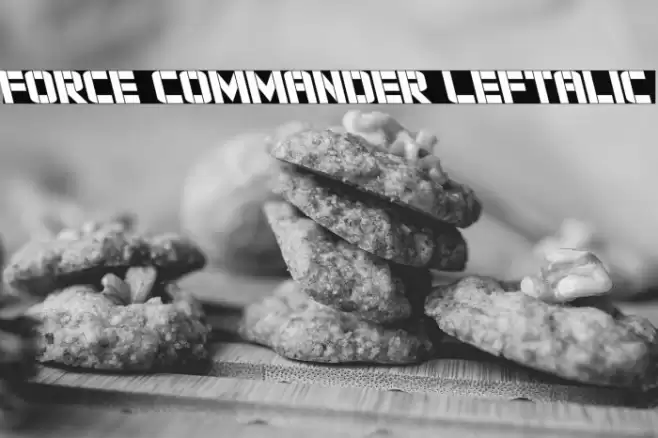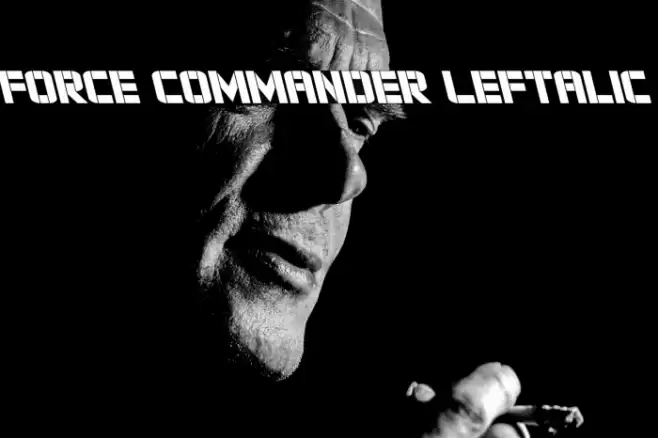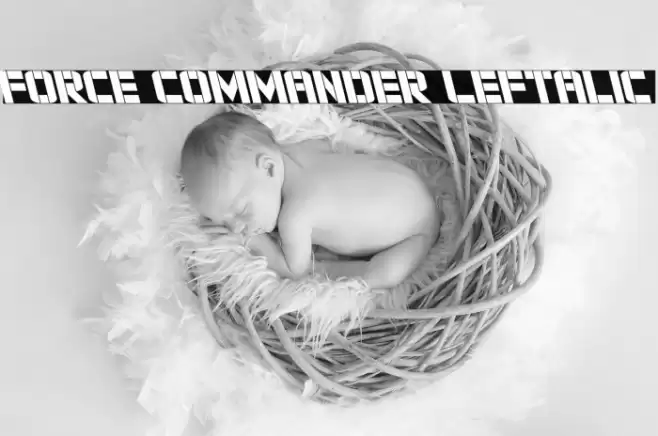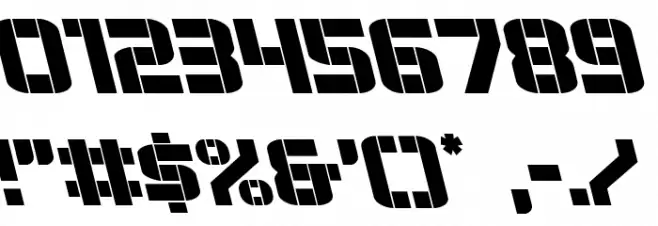
Force Commander Leftalic Font
Force Commander Leftalic Description
This font features a bold, geometric design with a distinct stencil-like appearance. The characters are constructed with thick, angular strokes that create a strong visual impact. The design incorporates sharp edges and a consistent slant, giving it a dynamic and futuristic feel. The uppercase and lowercase letters maintain a uniform style, while the numbers and special characters complement the overall aesthetic. The font's unique structure makes it suitable for attention-grabbing headlines and modern design projects.
A bold, geometric stencil font with a dynamic, futuristic style from Uncategorized fonts.
- Font: Force Commander Leftalic
- Proposed Projects: Ideal for branding, posters, video game graphics, and sci-fi themed designs.
- Overall Style: Futuristic, Modern